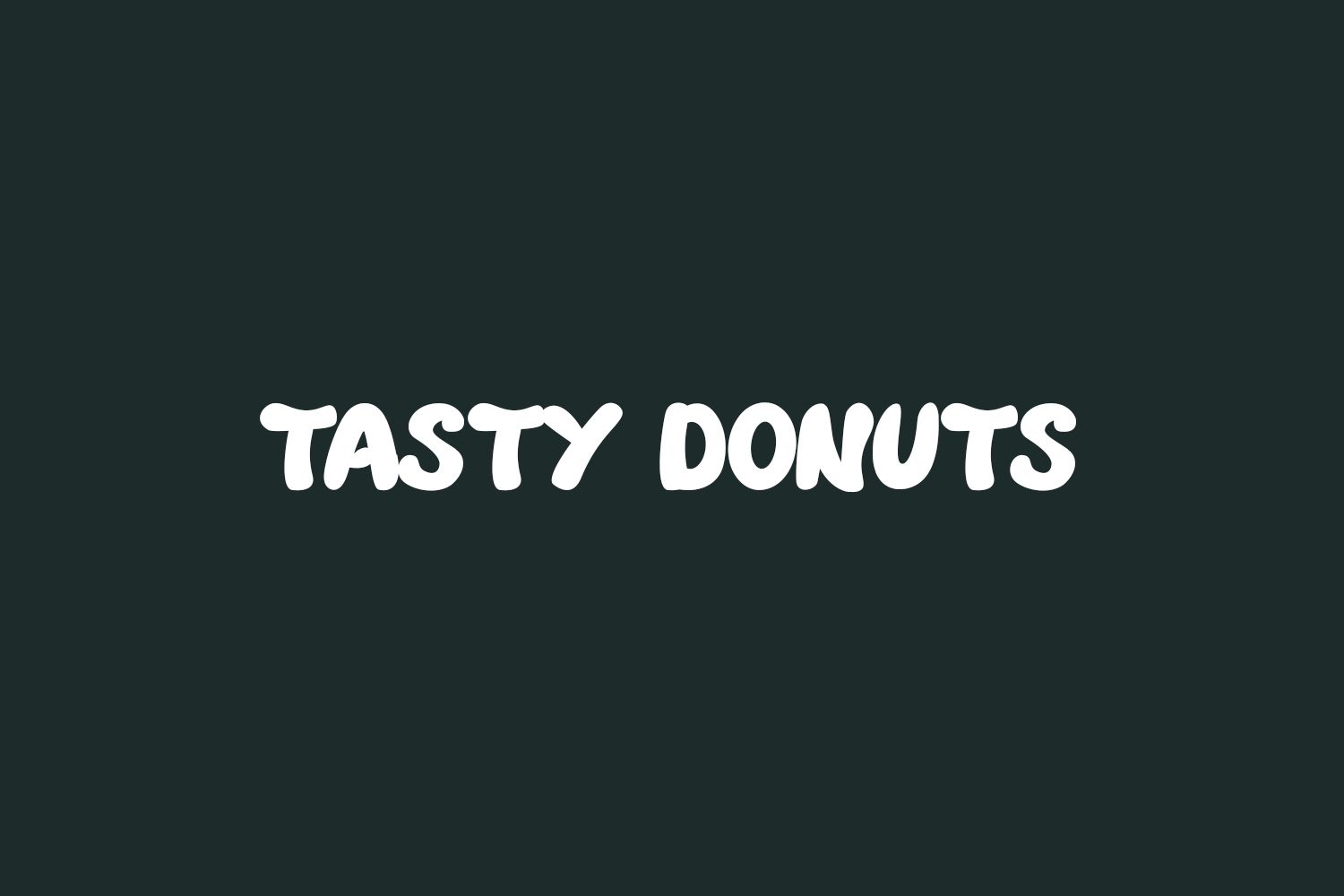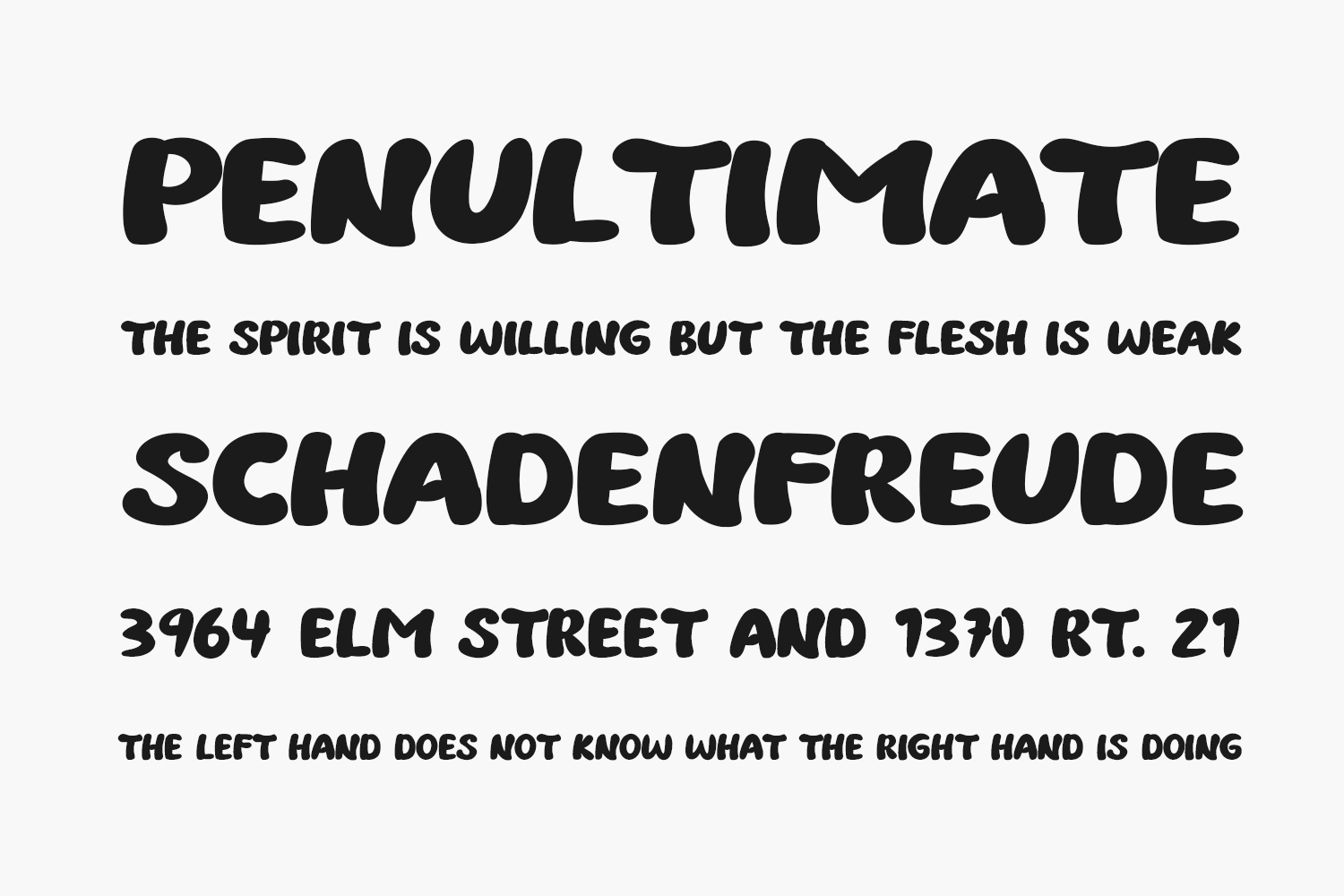
Tasty Donuts Free Font is a cute and colorful display font. Add this chunky lettered font to your designs and notice how it makes them come alive. Tasty Donuts Free Font was designed by Regulerstudio and is free for personal use only. Please purchase the full version for commercial use.